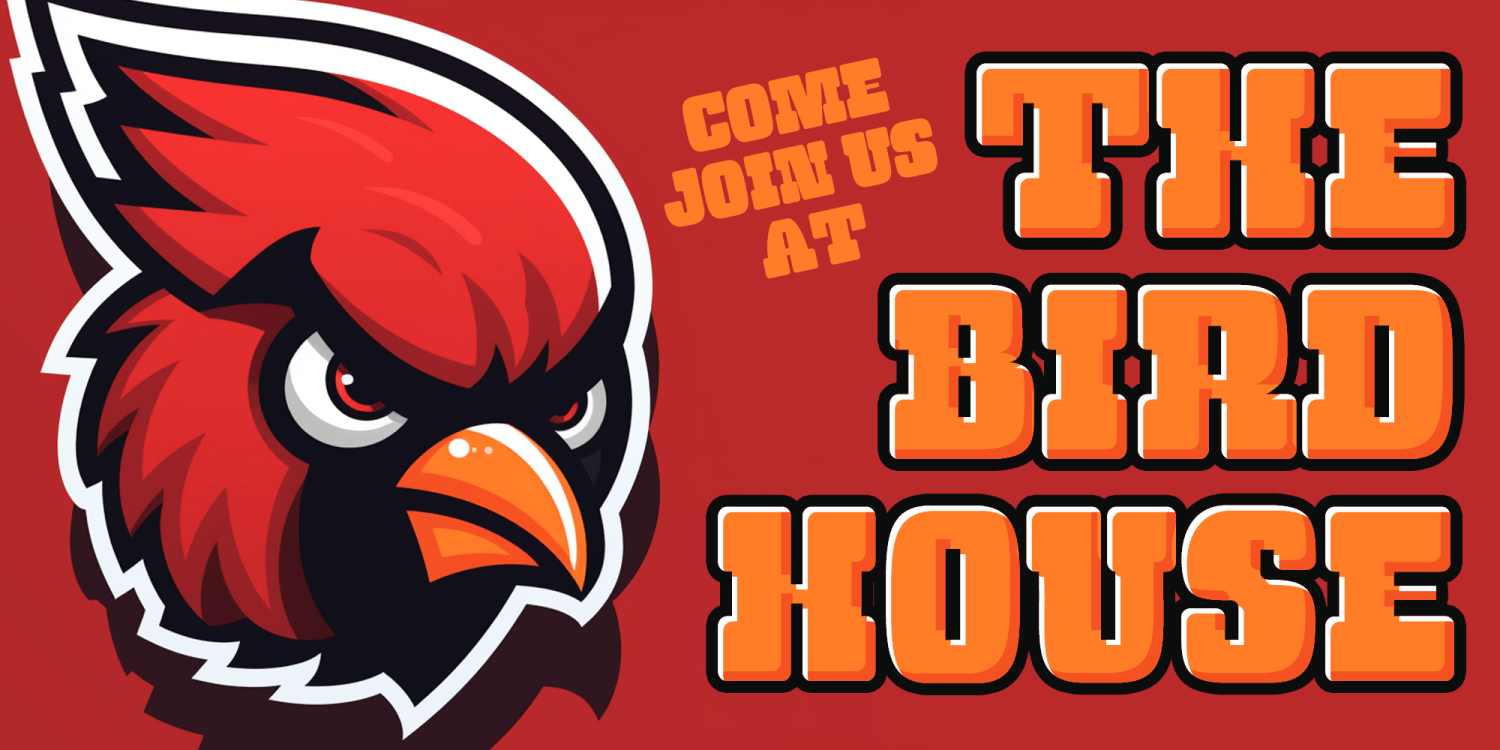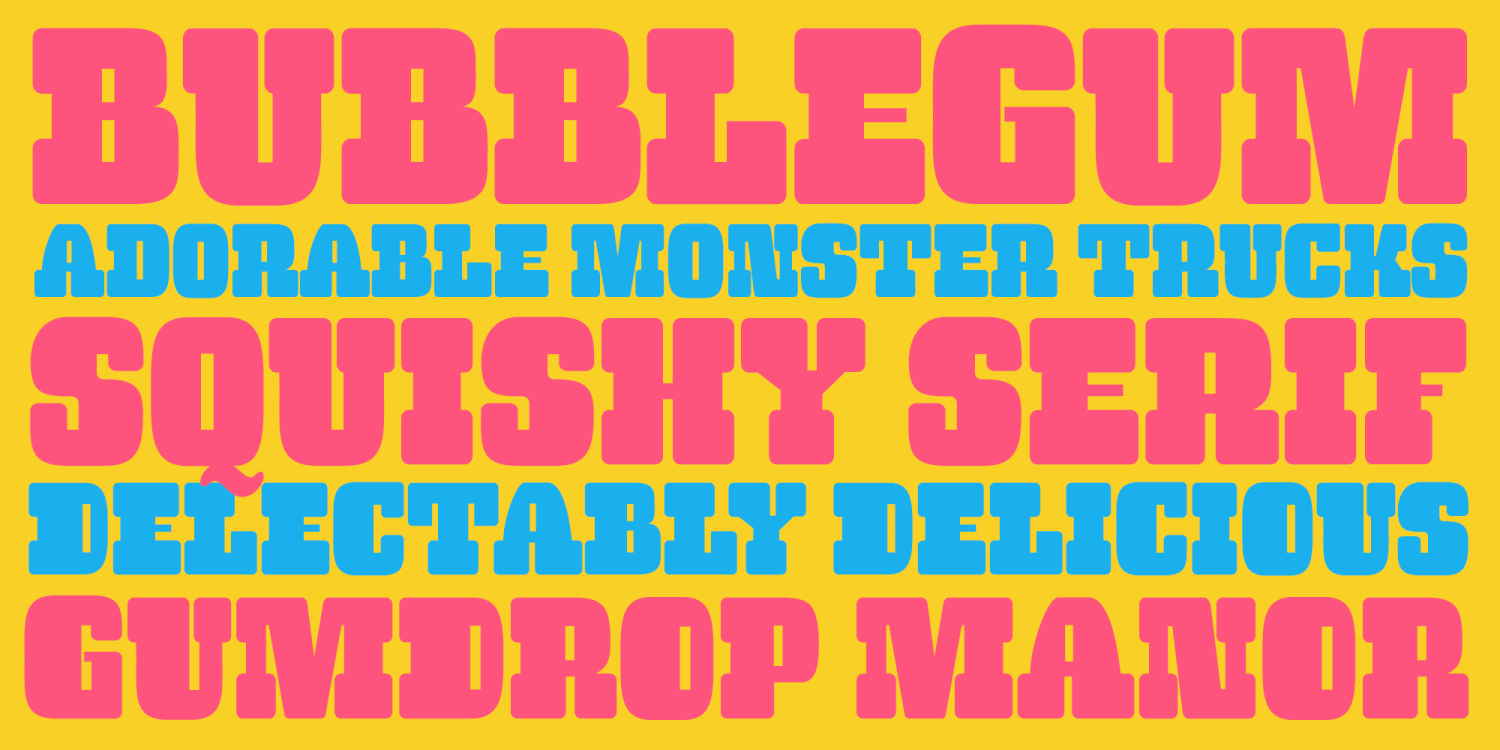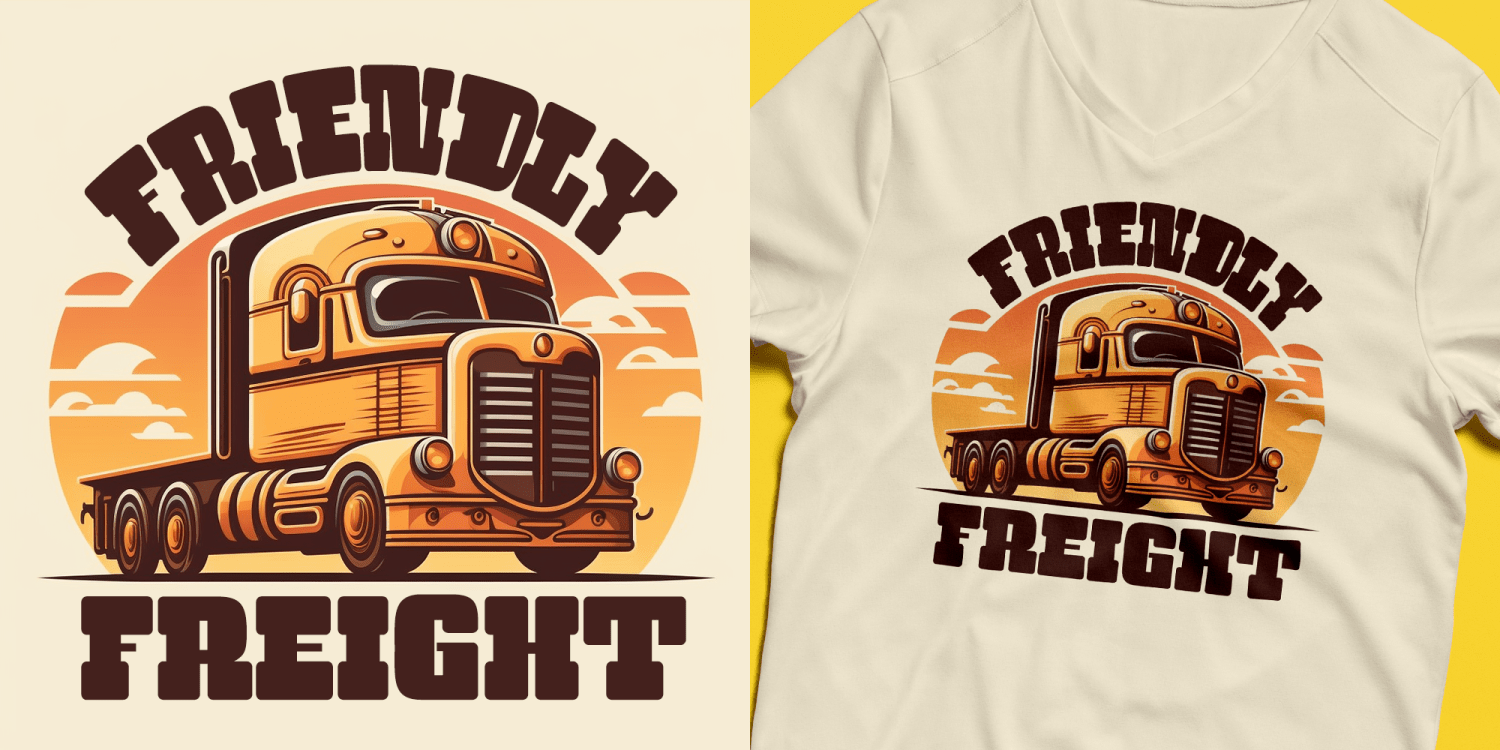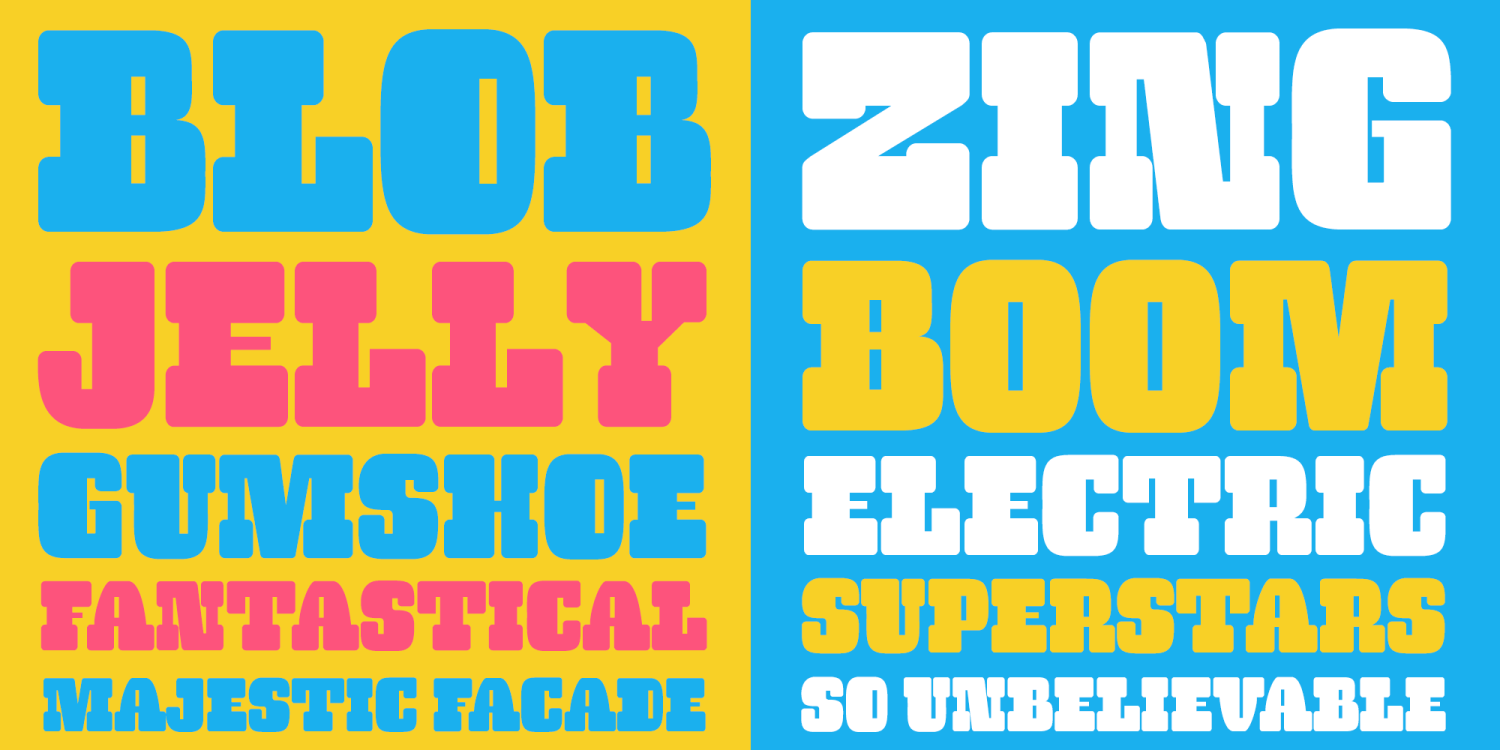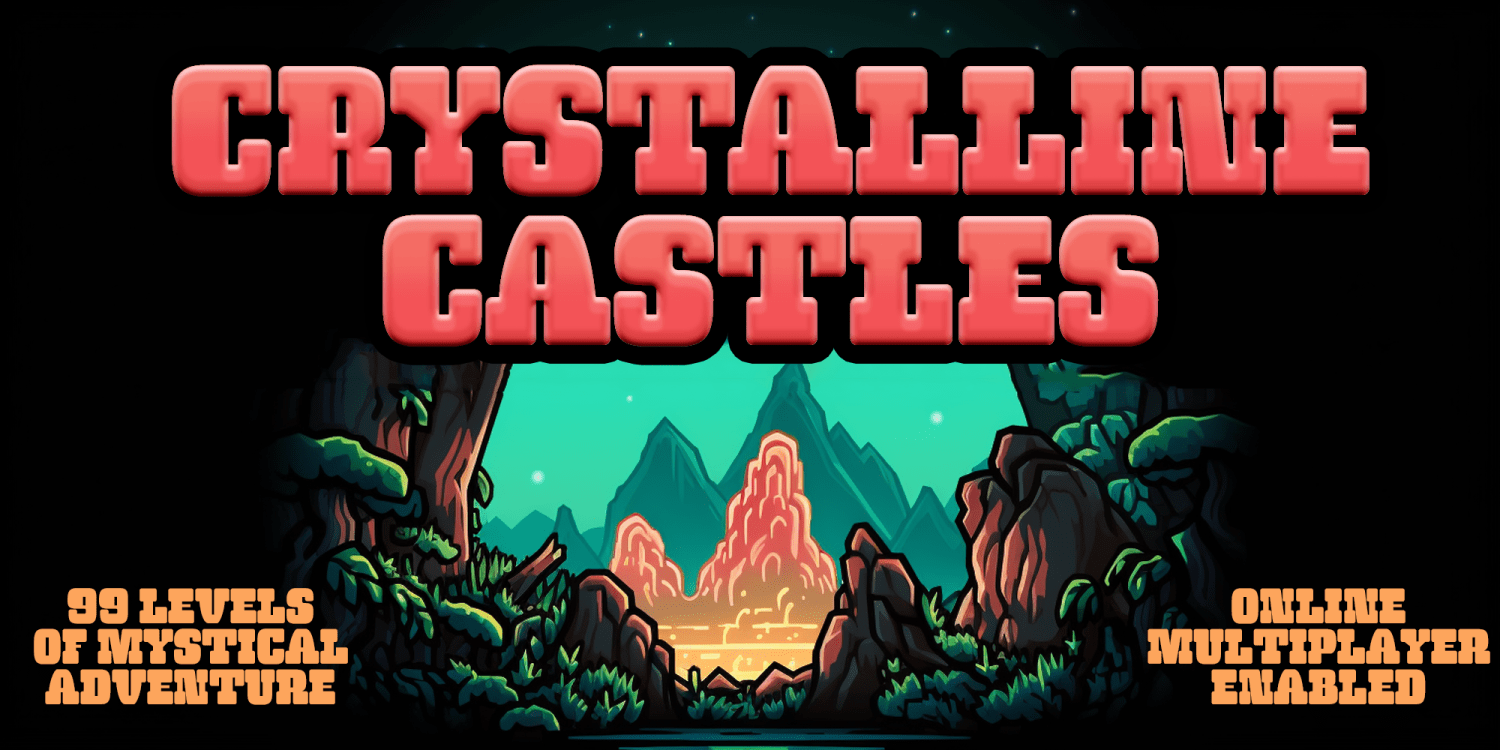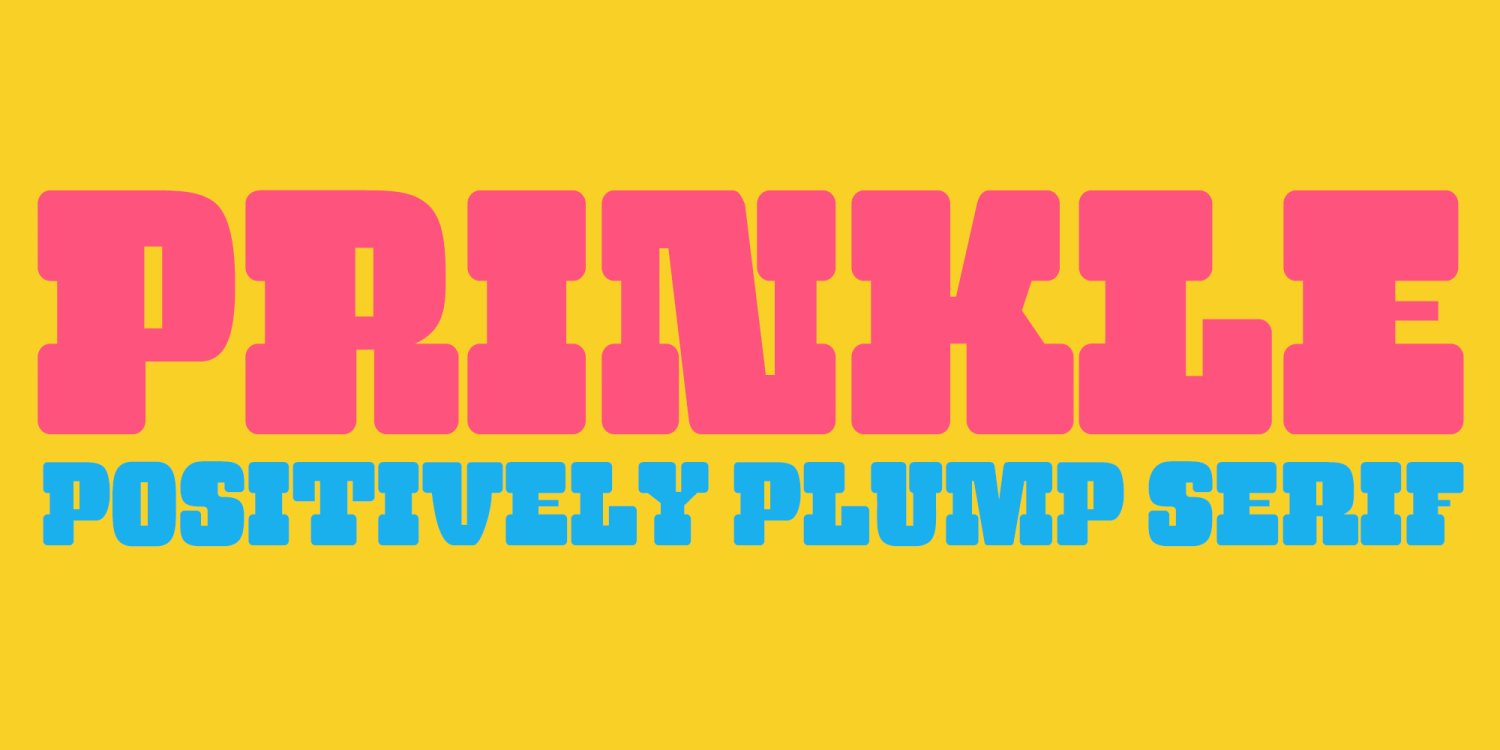
Prinkle
About Prinkle
Prinkle comes from my love of old beefy wood type and funky film types mashed together. Fat serif love meets plump and rounded lusciousness. A bubblegum chewy serif with playful weighting and letterforms and squared off counters. Prinkle is like a squeezy…